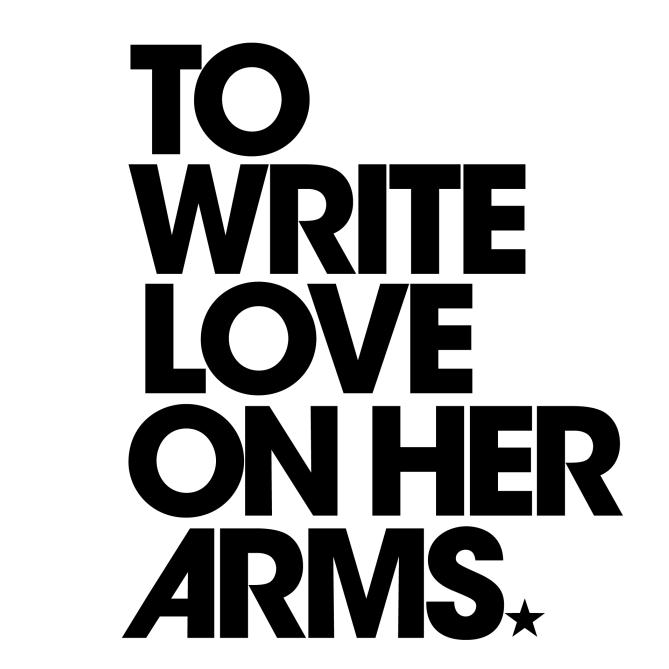
To Write Love on Her Arms Font
Fonts in UseTo Write Love on Her Arms (TWLOHA) is a non-profit organization that aims to help people struggling with depression, addiction, self-injury, and suicide by providing them with hope and support through various programs, events, and resources. It was founded in 2006 by Jamie Tworkowski.
TWLOHA logo uses ITC Avant Garde Gothic Bold font, a geometric sans-serif typeface created by Herb Lubalin in the late 1960s for Avant Garde magazine's logo. Tom Carnase drew the alphabet based on Lubalin's sketches, and it remains a popular font.